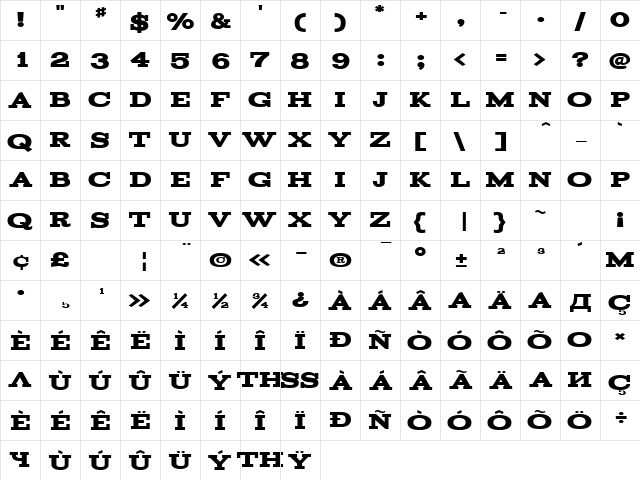
Acknowledgement Regular
Design Context for Acknowledgement Typeface
Acknowledgement takes a measured approach to typography — its balanced proportions and neutral character make it a reliable workhorse for both digital and print work.
Pro Tip: Use Acknowledgement in both headline and body roles to test its range before committing to a single application.